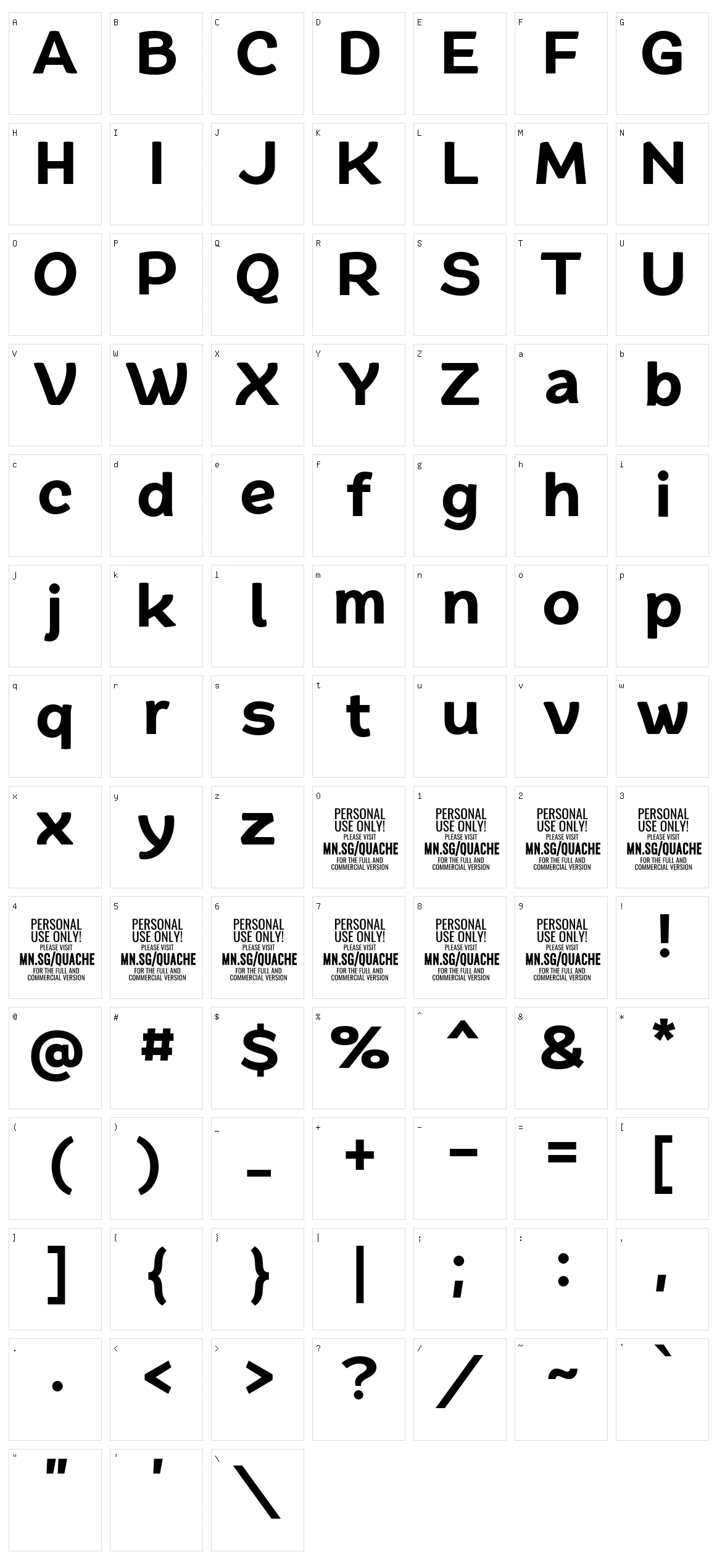
Quache is a flexible sans-serif, created by Måns Grebäck between 2018 and 2020.
It has unique, stylish curvatures and is clear, legible and sharp with open letter forms.
The font family consists of six weights and four widths, totaling in 28 main styles: Thin, Light, Regular, Bold, Black, Heavy and Condensed, Normal, Expanded, ExtraExpanded
The typeface is also provided in variable font format: use the sliders in Illustrator, Photoshop or InDesign to manually set any weight and width.
This gives you not 28 styles, but instead 1000 times 1000 options to customize the type to the exact look your project requires.
It supports Latin-based languages, and contains numbers and all symbols you'll ever need.